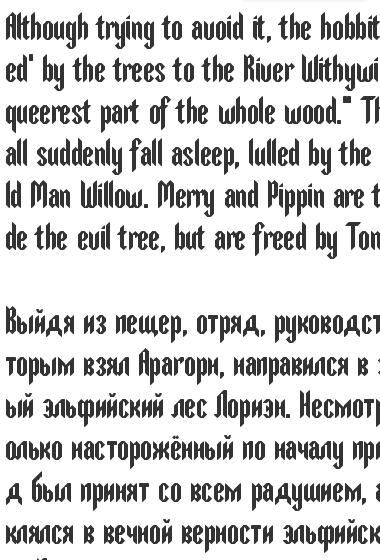
Good stuff. I really like the E, X, Z, and x. The @ is good too.
Cool. Didn't Prof T. invent the most beautiful words.
very nice... i like that "tangram look" of fontstructions that were made only with the basic bricks.
and respect for the cyrillic set!;)
Looking good. Bonus points for venturing into the cyrillic alphabet! :-)
I miss the ascender on the ф. And maybe the space is a bit too wide?
Thank you for pinpointing the missing ascender. I merely followed the cursive tradition, which does not have that feature. But you are absolutely right. I also reduced the space.
Fantastic! Great to look at and a real 'tour de force'